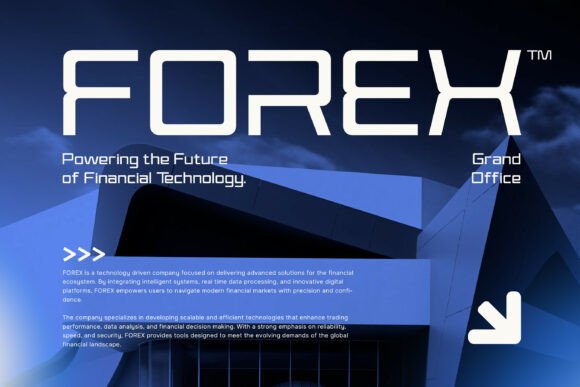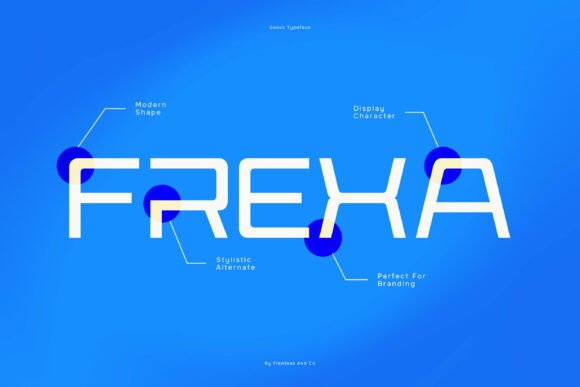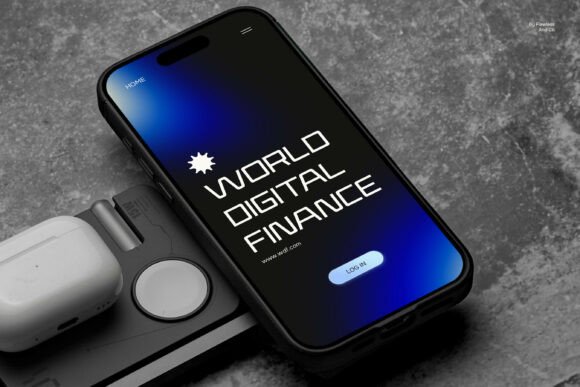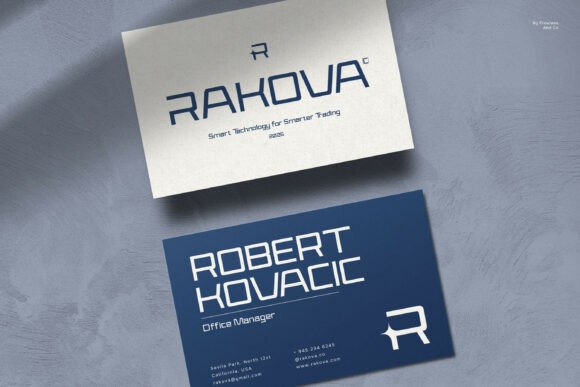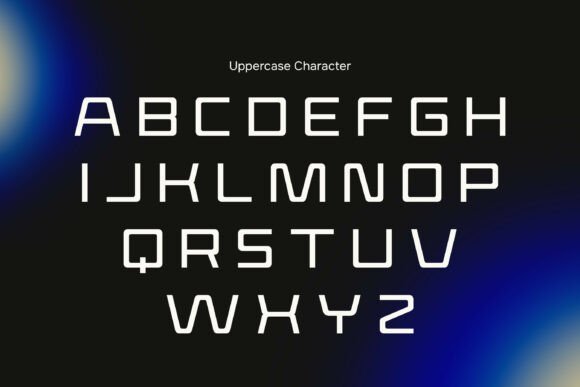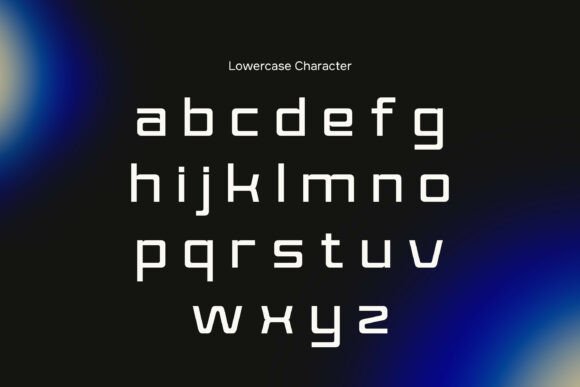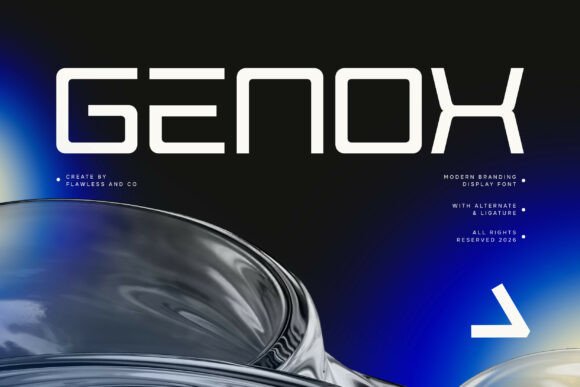
Introducing Genox Font: The Modern Branding Display Typeface
In the world of design, typography plays a crucial role in creating a lasting impression. A well-crafted font can elevate a brand’s visual identity, making it more memorable and recognizable. Genox Font is a modern branding display typeface that embodies the perfect blend of style, clarity, and impact. Designed to create a strong and memorable visual identity, Genox is an excellent choice for designers and crafters looking to make a statement.
Clean Structure, Sharp Edges, and Contemporary Letterforms
Genox Font boasts a clean structure, sharp edges, and contemporary letterforms that come together to deliver a confident and professional look. Its sleek design makes it perfect for a wide range of design needs, from logos and headlines to promotional materials and branding projects. The font’s modern aesthetic is sure to captivate audiences and leave a lasting impression.
Perfect for Branding Projects
Genox Font is specifically designed for branding projects that require clarity, impact, and a modern aesthetic. Its distinctive style makes it an excellent choice for designers looking to create a unique visual identity for their clients or personal projects. Whether you’re working on a logo, brochure, or website, Genox brings a powerful and stylish presence to your work.
Key Features of Genox Font
- Clean Structure: Genox Font features a clean and minimalist structure that ensures clarity and legibility.
- Sharp Edges: The font’s sharp edges add a touch of sophistication and modernity, making it perfect for branding projects that require a professional look.
- Contemporary Letterforms: Genox Font’s contemporary letterforms are designed to make a statement, with a unique and stylish aesthetic that’s sure to capture attention.
- Versatility: Genox Font is versatile and can be used across various design needs, from logos and headlines to promotional materials and branding projects.
Why Choose Genox Font?
With so many fonts available, why choose Genox Font? Here are just a few reasons why Genox stands out:
- Unique Style: Genox Font has a distinctive style that’s sure to make your branding projects stand out from the crowd.
- Legibility: The font’s clean structure and sharp edges ensure excellent legibility, making it perfect for use in a variety of design applications.
- Professional Look: Genox Font delivers a confident and professional look that’s perfect for branding projects that require a modern aesthetic.
- Easy to Use: Genox Font is easy to use and can be integrated seamlessly into your design workflow.
Design Tips and Best Practices
To get the most out of Genox Font, here are some design tips and best practices to keep in mind:
- Use it as a Display Font: Genox Font is perfect for use as a display font, making it ideal for headlines, titles, and promotional materials.
- Pair it with Other Fonts: Experiment with pairing Genox Font with other fonts to create a unique and visually appealing typography scheme.
- Adjust Letter Spacing: Adjusting letter spacing can help to enhance the font’s legibility and overall aesthetic.
- Experiment with Colors: Genox Font looks great in a variety of colors, so don’t be afraid to experiment and find the perfect color scheme for your design.
Genox Font is a modern branding display typeface that’s perfect for designers and crafters looking to create a strong and memorable visual identity. With its clean structure, sharp edges, and contemporary letterforms, Genox delivers a confident and professional look that’s sure to make a statement. Whether you’re working on a logo, brochure, or website, Genox Font is an excellent choice for any branding project that requires clarity, impact, and a modern aesthetic.